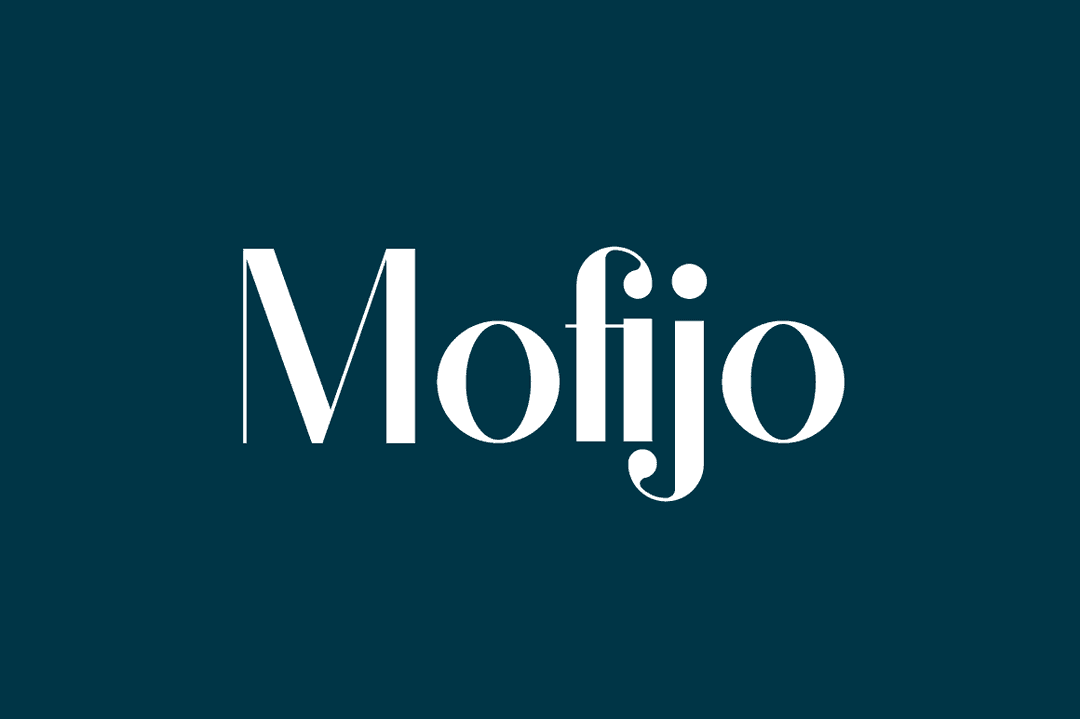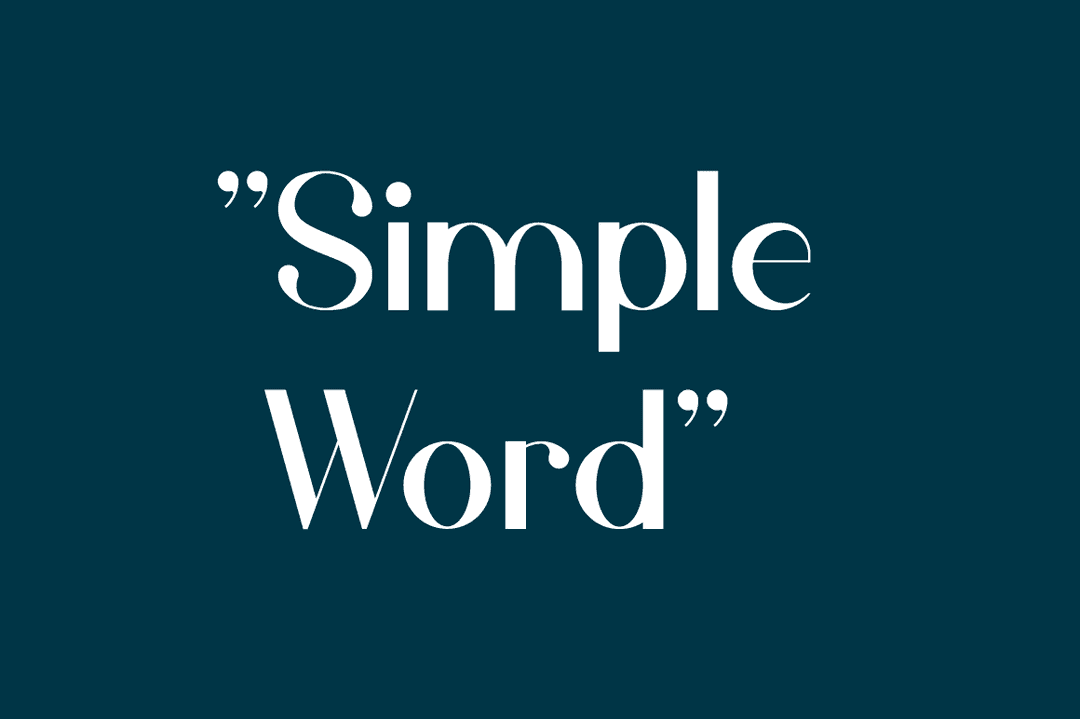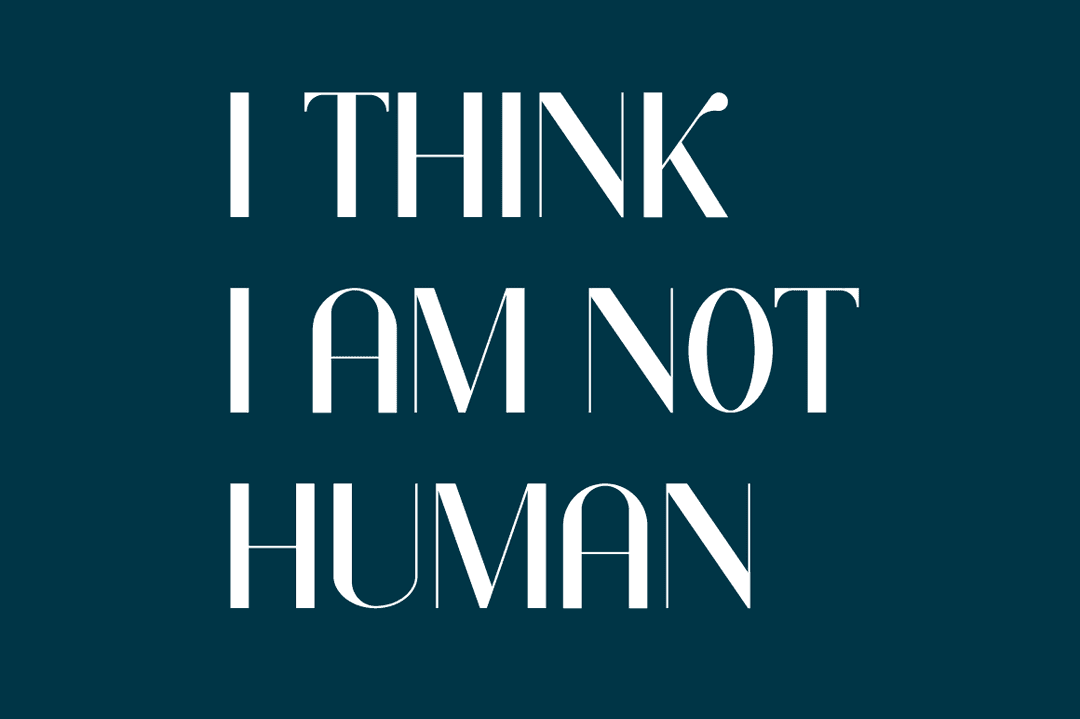
Mofijo is a straightforward classic sans serif typeface with plenty of character that works equally well for headers or body copy. This font contains uppercase letters, lowercase letters, all Latin characters (including accents ) numbers as well as special characters including punctuation marks.